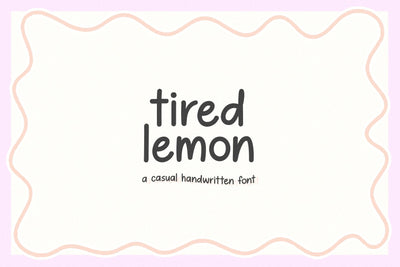
Tired Lemon - Casual Handwritten Font
Tired Lemon is a cute handwritten font.
This font is perfect for cricut projects, teachers, goodnotes, planners, stickers, quotes and more!